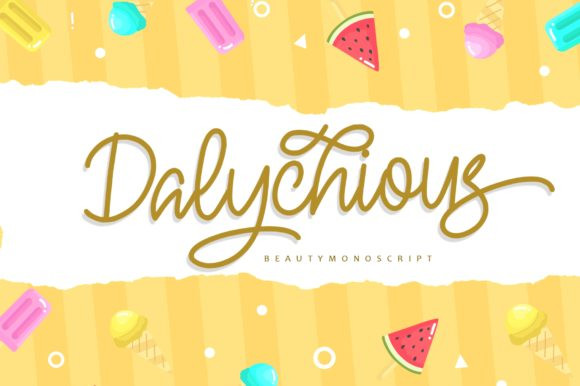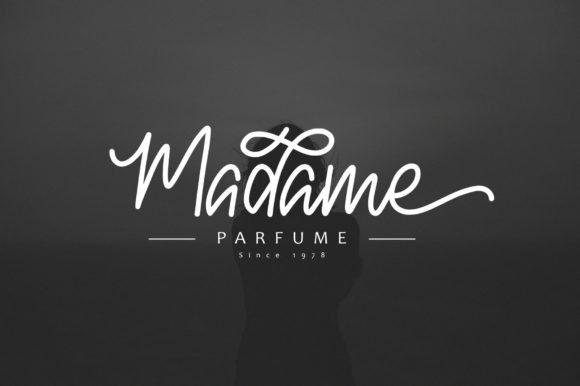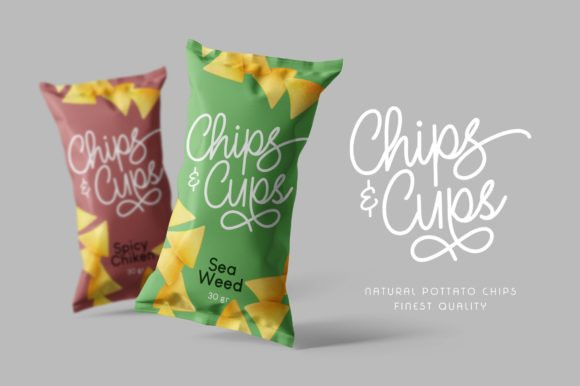
Dalychious Font
Dalychious is a distinct and round lettered handwritten font. It looks beautiful on wedding invitations, thank you cards, quotes, greeting cards, logos, business cards and every other design which needs a handwritten touch.